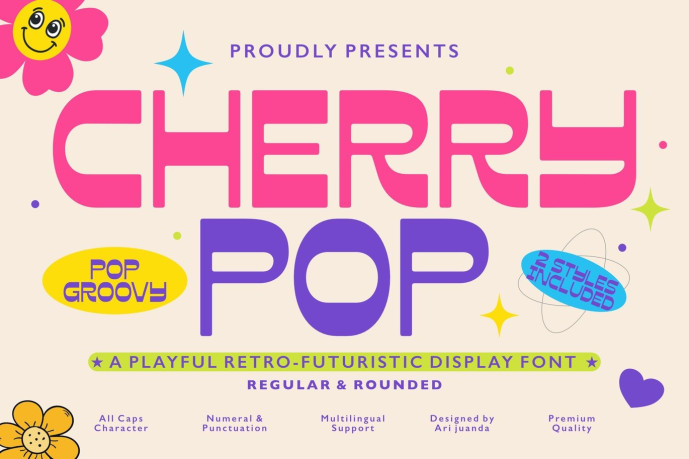
Cherry Pop-Playful Retro Display Font
Designer: Ari juanda
Meet Cherry Pop, a bold and playful display font inspired by the colorful energy of retro pop culture and futuristic Y2K aesthetics. Designed with smooth rounded corners and clean geometric shapes, Cherry Pop instantly brings a fun, cheerful personality to every design.
Bring fun, color, and personality into your next project with Cherry Pop—a font made to turn every word into the center of attention.